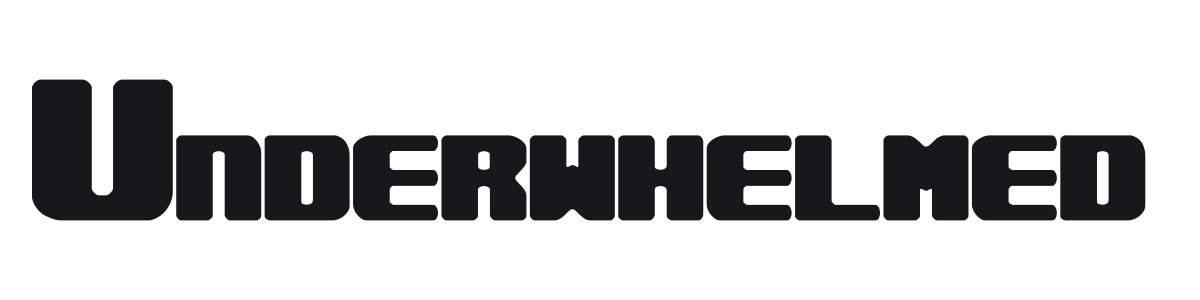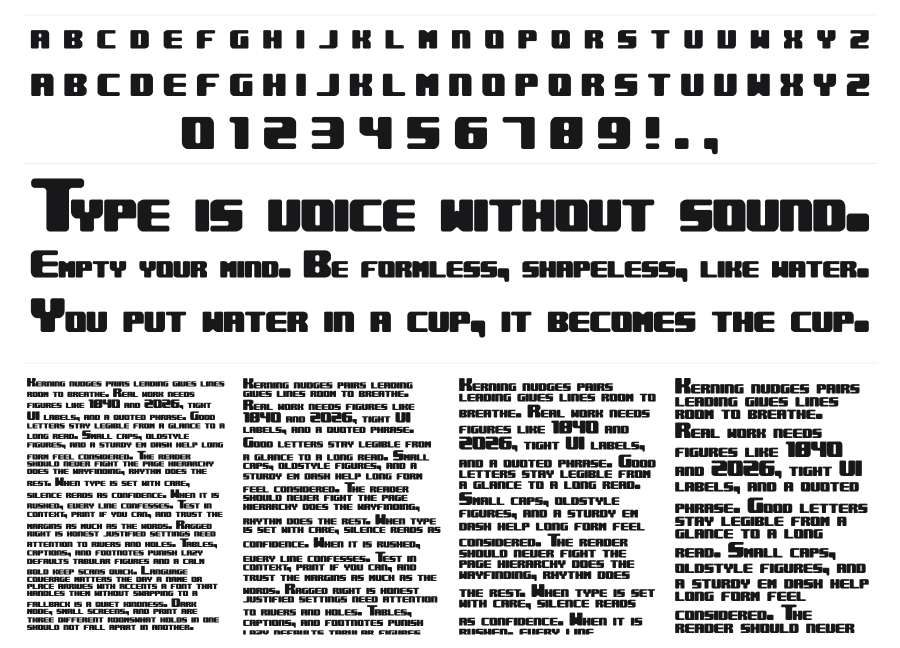
Underwhelmed
Underwhelmed is a heavy black sans-serif with wide, blocky proportions and subtly rounded interior corners. The ultra-bold strokes and dense spacing give it a forceful, retro-industrial character reminiscent of 1970s display lettering. It works best at large sizes where its weight and compactness read as confident and direct.